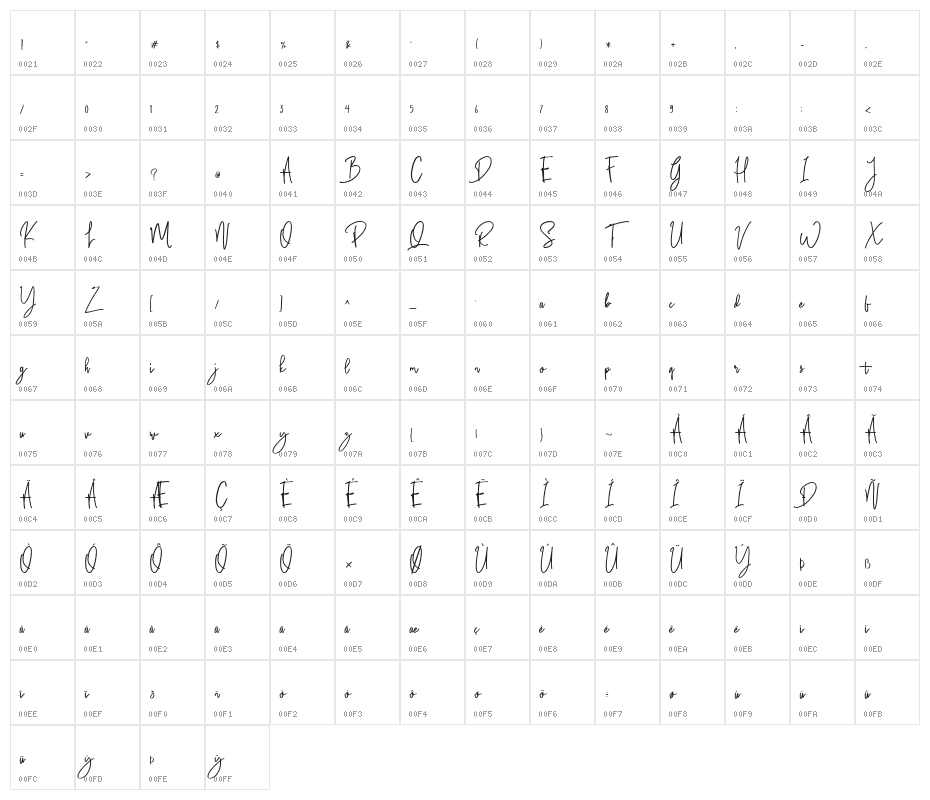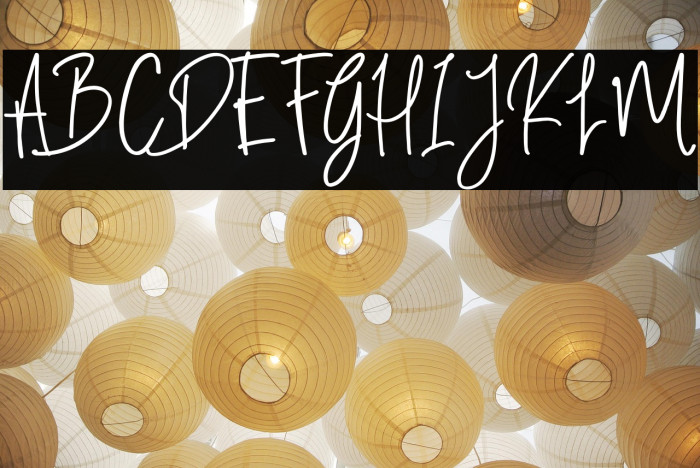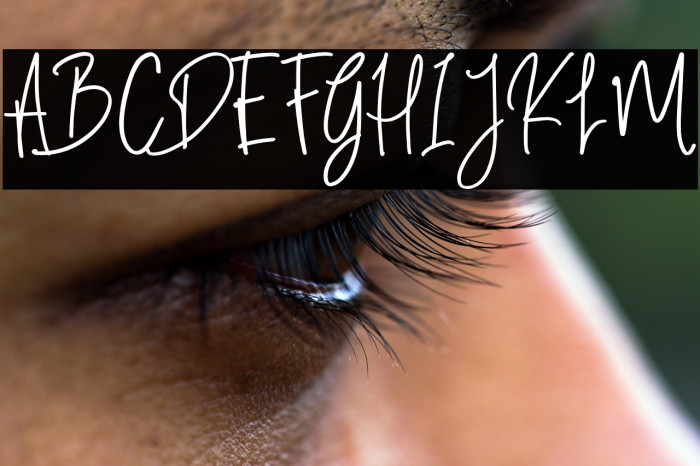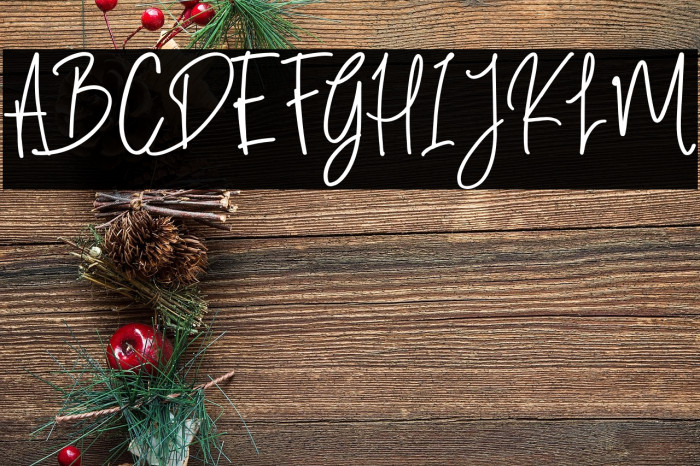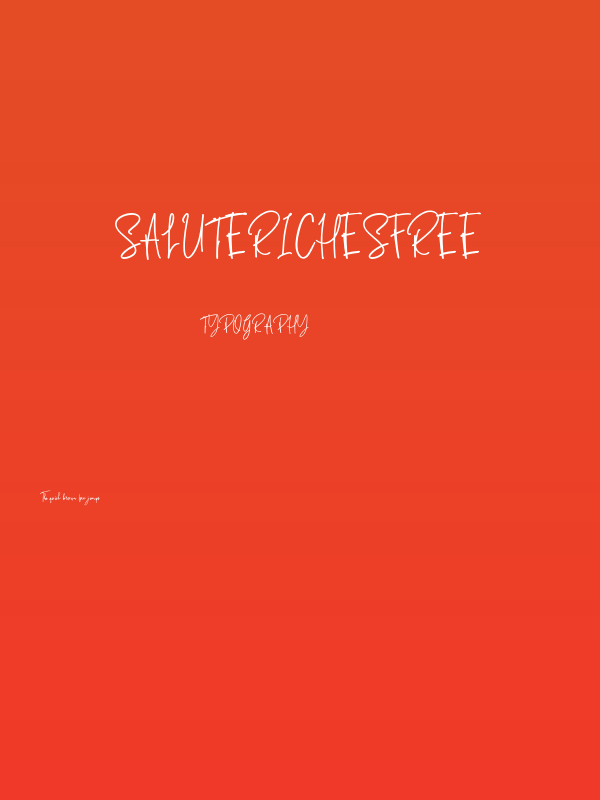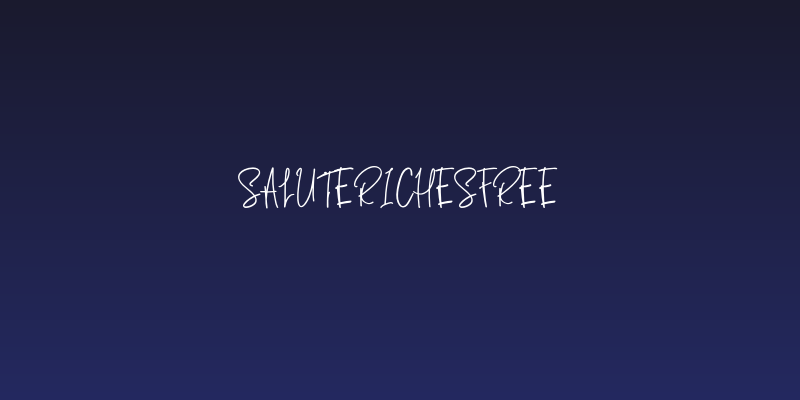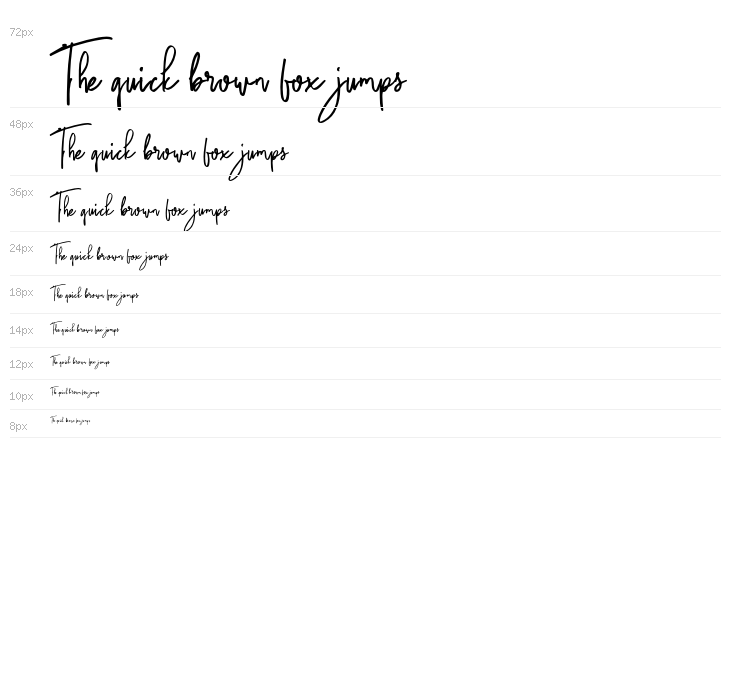
SaluteRichesFree Font
SaluteRichesFree Description
This font features a lively and expressive handwritten style, characterized by its fluid and dynamic strokes. The uppercase letters are bold and slightly irregular, giving a sense of spontaneity and energy. The lowercase letters maintain a consistent flow, with some letters featuring unique loops and swirls that add to the font's charm. The numbers are clear and legible, while the special characters complement the overall style with their playful design. This font exudes a personal and informal feel, making it ideal for creative projects.